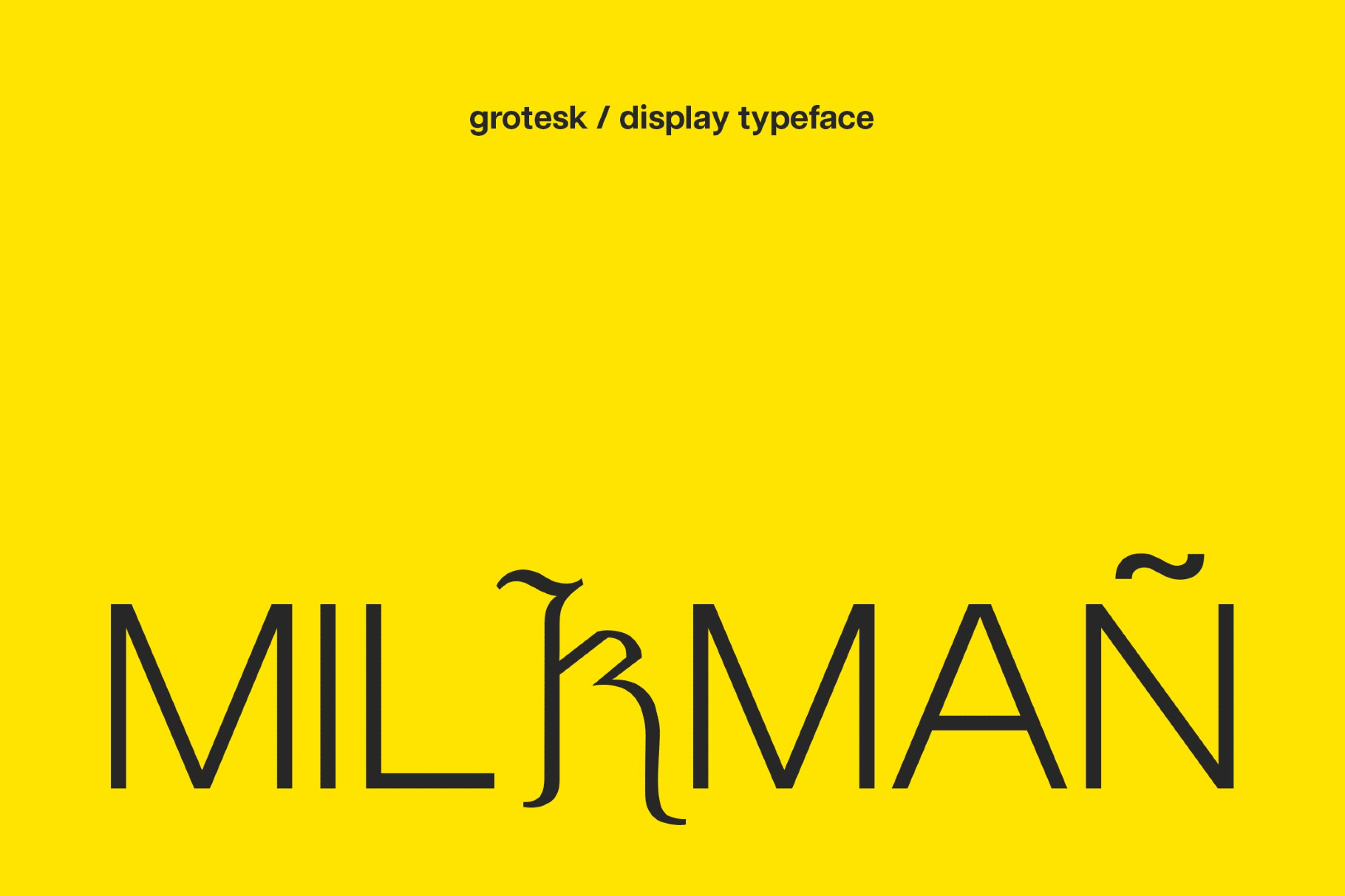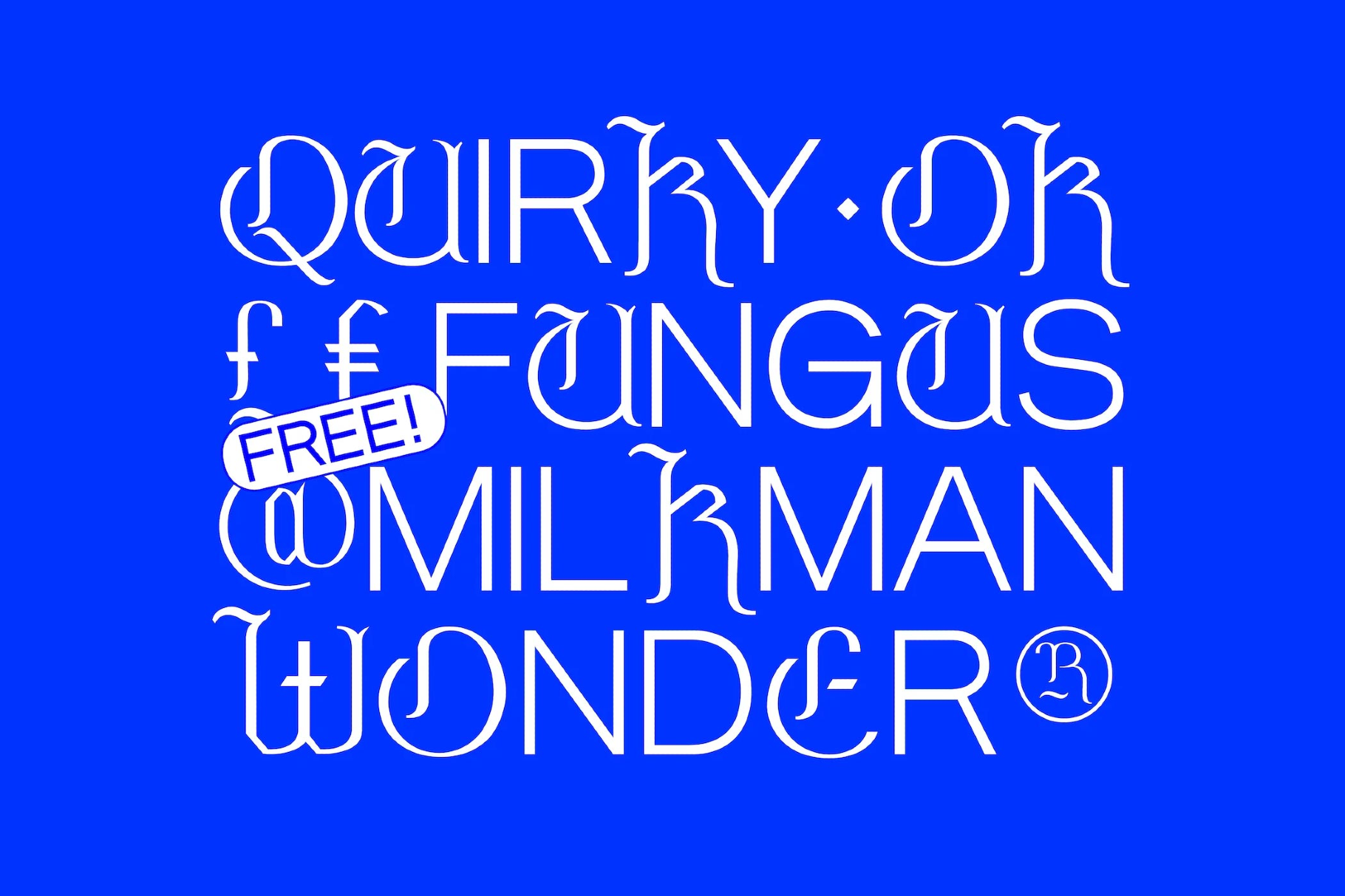
Milkman Combination Display Font
Milkman is a hybrid grotesk with blackletter reflexes. Clean sans skeletons carry spurred terminals, curled cap forms, and knife-cut diagonals. It follows recent typographic trends, creating non-cliche character combinations, where the blackletter sets expressive accents within a word.
Use it for typographic posters, magazine nameplates, fashion editorials, gallery or festival identities, music artwork and merch, art-book covers, packaging wordmarks, web hero graphics, wayfinding for cultural venues, and title cards.